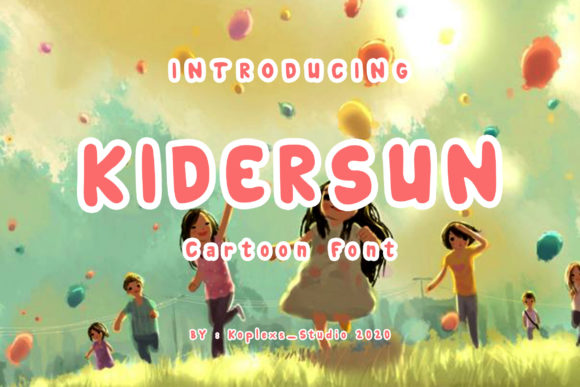
Journey into the whimsical world of Kidersun Font, a captivating display font crafted with meticulous attention to detail by the talented Koplexs Studio. Kidersun is not just a font; it's an artistic expression that will transform your designs into captivating visual masterpieces.
Immerse yourself in the font's playful spirit, inspired by the infectious laughter and boundless imagination of children. Kidersun's charming characters dance across the page, evoking a sense of wonder and delight. Its playful curves and whimsical strokes create a captivating visual experience that is sure to leave a lasting impression.
Unleash your creativity and let Kidersun add a touch of magic to your book titles, posters, branding projects, and social media posts. Its versatility is boundless, allowing you to effortlessly create designs that exude personality and charm. Whether you're a seasoned designer or just starting your creative journey, Kidersun is the perfect companion to bring your ideas to life.
Transport yourself to a realm of creativity where imagination knows no bounds. Let Kidersun ignite your passion for design and craft creations that captivate and inspire. Its unique style will elevate your work to new heights and leave a lasting impression on your audience. Embrace the magic of Kidersun and embark on a typographic adventure that will forever change the way you design.
Don't settle for ordinary fonts that blend into the background. Choose Kidersun, the font that dances off the page, capturing hearts and imaginations. Its sweet and quirky nature will add a touch of whimsy to your designs, making them stand out from the crowd.
With Kidersun, you'll discover a newfound love for typography. Its versatility and charm will inspire you to create designs that are truly unforgettable. So why wait? Embark on a creative odyssey with Kidersun today and let your imagination soar!